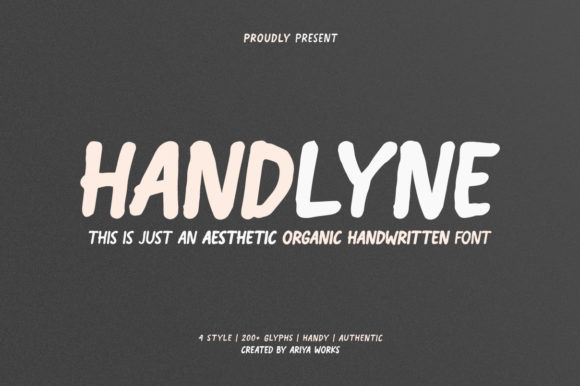
Calling all note-takers, journal-keepers, and creative scribes!
Introducing Handlyne Font, an enchanting and organic handwritten font that will transform your digital scribbles into masterpieces.
Crafted with meticulous care by the skilled artisans at Ariya Works Studio, Handlyne Font is not just a font; it's a testament to the power of authenticity. Unlike sterile and impersonal digital fonts, Handlyne Font is a celebration of the human touch. Each letter, each stroke, is a reflection of the designer's own penmanship, imbuing your digital notes with a touch of warmth and personality.
Step into a world where your notes come alive, where your journal pages whisper secrets, and your creative projects dance with authenticity. Handlyne Font is the perfect canvas for expressing your thoughts, dreams, and aspirations. Let your words flow effortlessly from your fingertips, guided by the gentle curves and organic shapes of Handlyne Font.
Elevate your note-taking beyond the mundane with Handlyne Font. Its unique, eye-catching style will make your notes stand out from the ordinary, ensuring they become a source of inspiration and joy. Capture every fleeting thought, every brilliant idea, and every personal reflection with the elegance and charm of Handlyne Font.
Unleash your creativity and let your imagination soar. Handlyne Font is not just for note-taking; it's for creating stunning typography, mesmerizing branding, captivating advertising, and eye-catching clothing designs. Its versatility knows no bounds, making it the perfect choice for any project that demands a touch of the extraordinary.